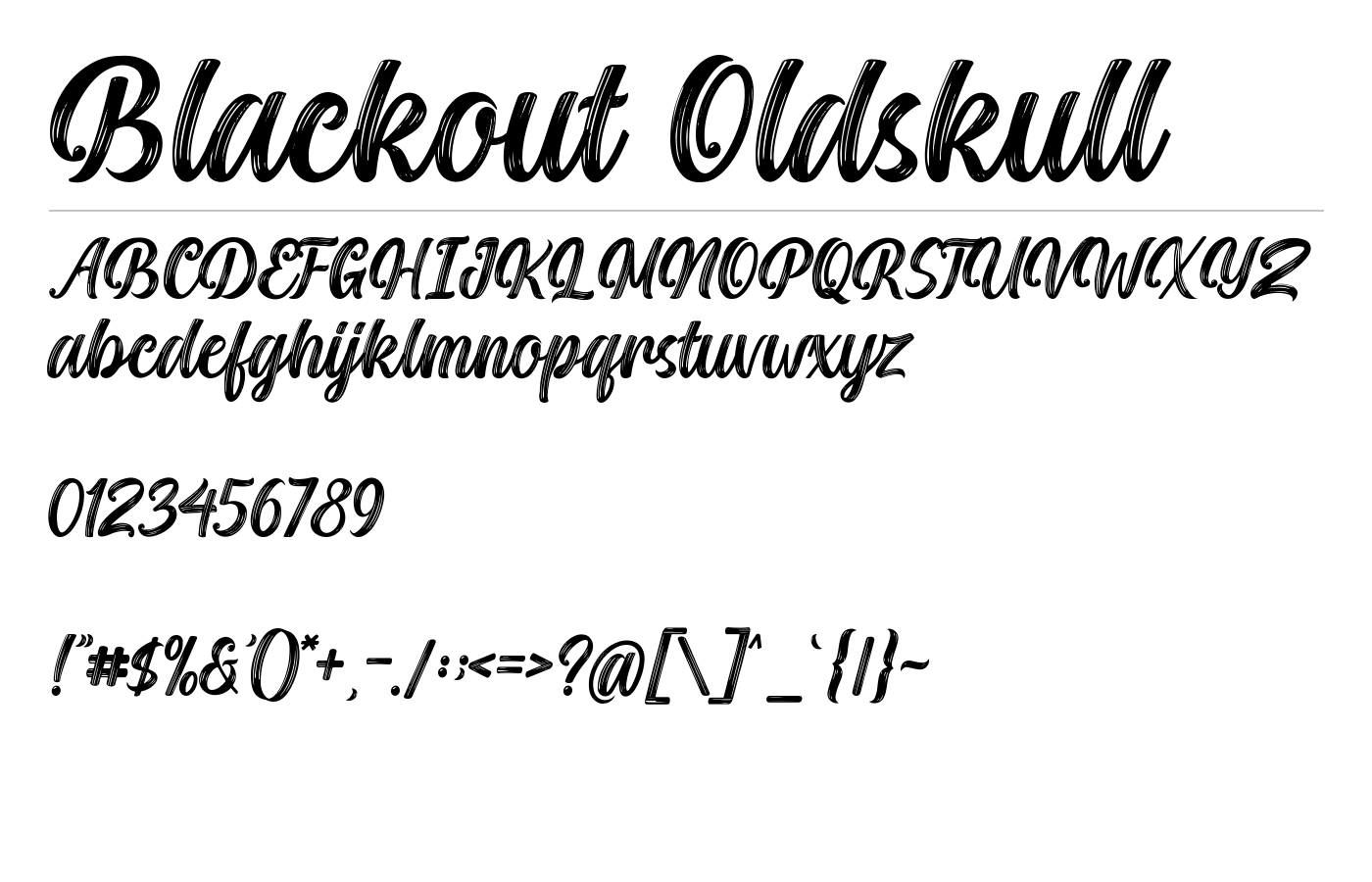
Blackout Oldskull is a bold, condensed script font with a lively, hand-brushed feel that combines high contrast strokes and playful curves. Its vintage-inspired style brings energy and personality, making it perfect for branding, posters, and headlines where a dynamic and expressive look is desired. This font works well to add a stylish, retro vibe while maintaining strong readability and charm.
Blackout Oldskull Font
About Blackout Oldskull Font